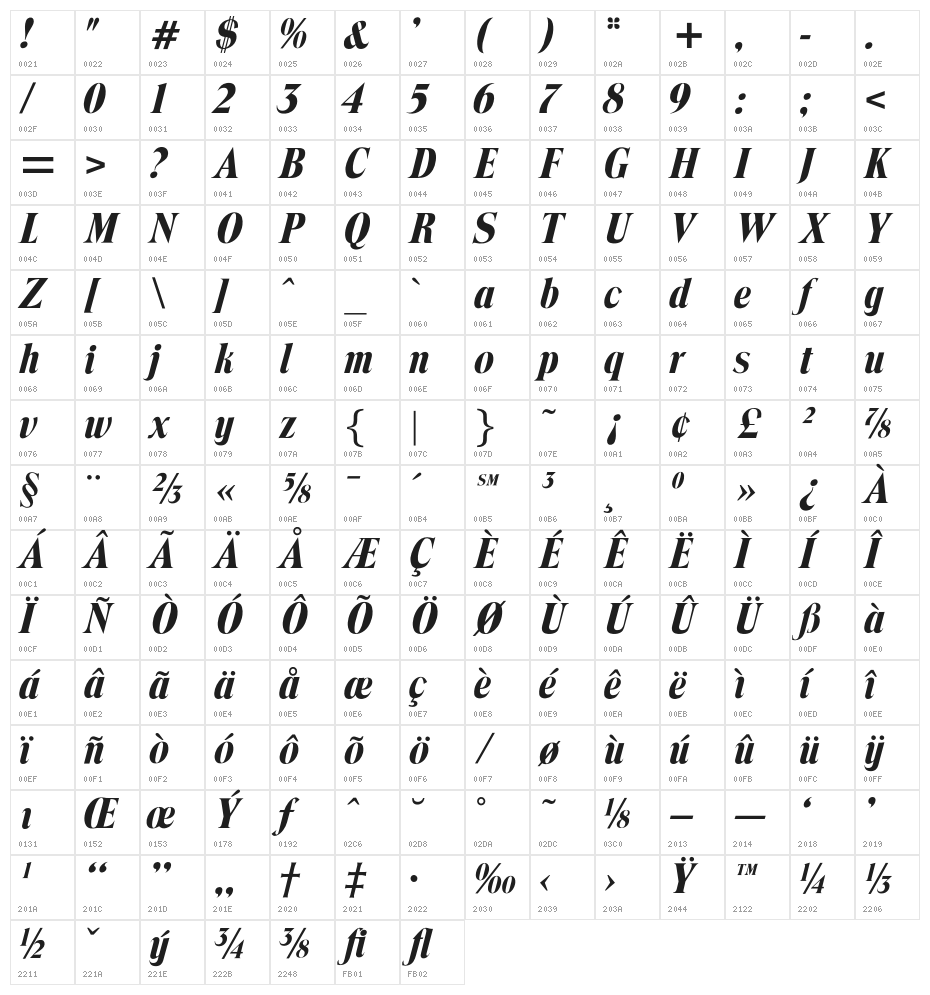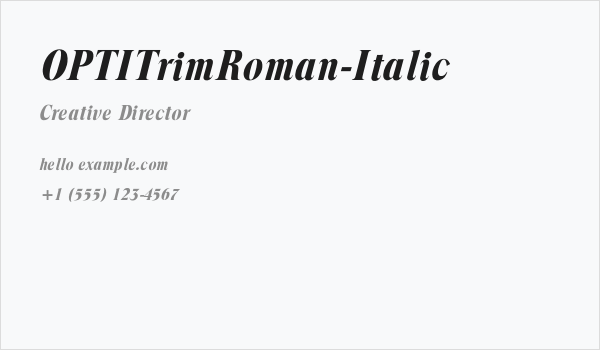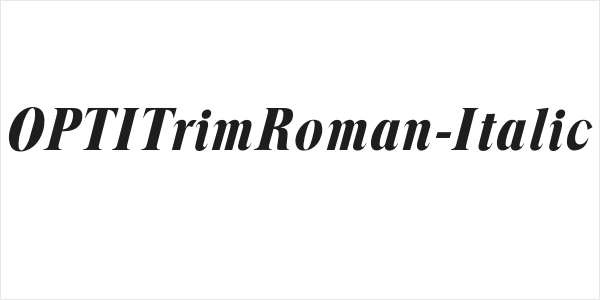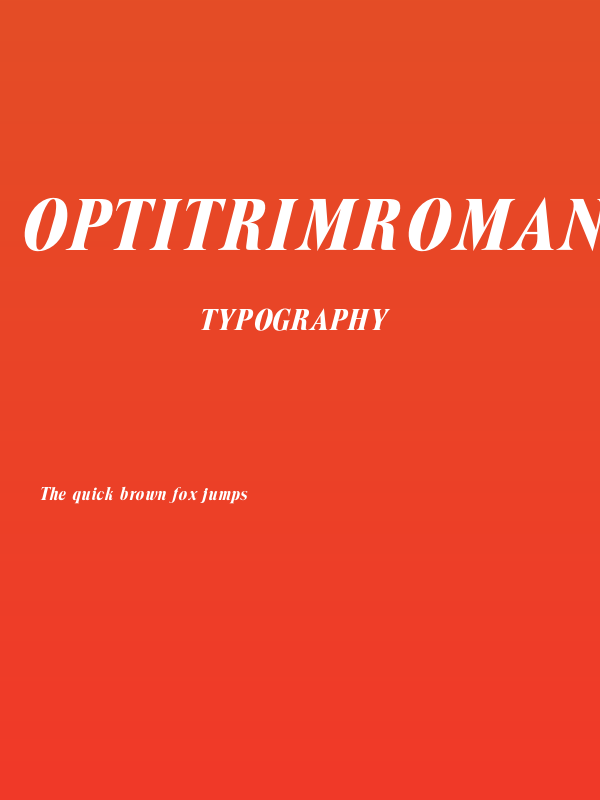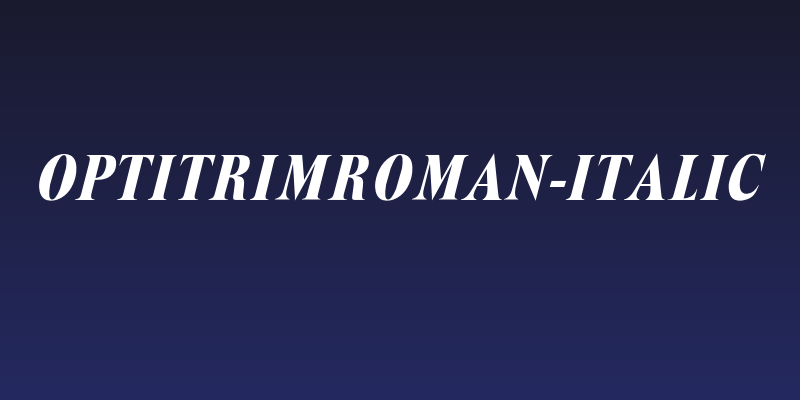
OPTITrimRoman-Italic Font
OPTITrimRoman-Italic Description
This font exhibits a classic and elegant style with a distinct italic slant, giving it a sophisticated and dynamic appearance. The characters are well-defined with sharp serifs and a moderate contrast between thick and thin strokes, enhancing its readability and aesthetic appeal. The uppercase letters are bold and commanding, while the lowercase letters maintain a graceful flow. The numerals are consistent with the overall style, providing a cohesive look. Special characters are included, maintaining the font's elegant design. This font is suitable for projects that require a touch of refinement and tradition.
| Use Case | Headlines, Logos, Editorial design |
| Proposed Projects | Ideal for formal invitations, branding, editorial design, and elegant packaging. |